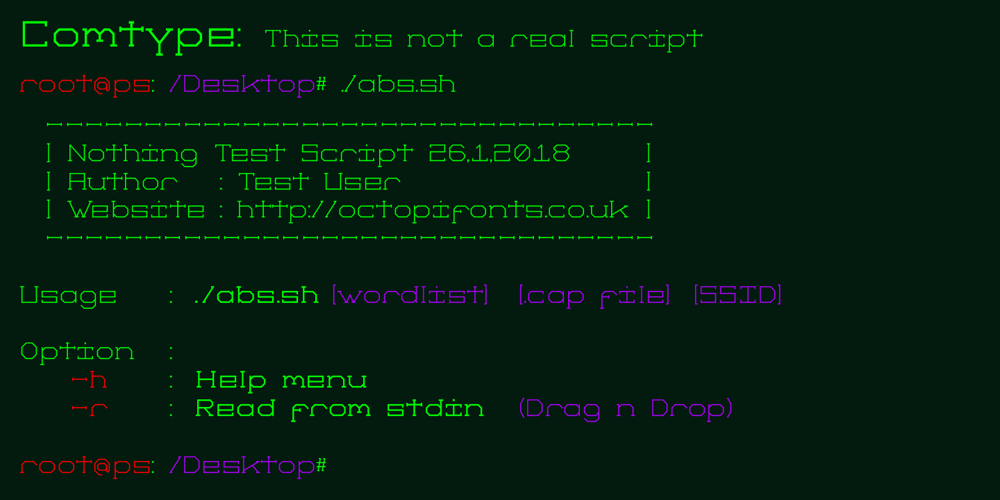
Comtype
Comtype font
Comtype Font Family was designed by Paul Smith and published by Octopi. Comtype contains 5 styles and family package options. Ridiculously wide, mathematical and angular, and yet, looks good in vast blocks of text. Comtype is a cross and exaggeration between vintage computer text and old-school typewriter text. Five weights for your typesetting pleasure.